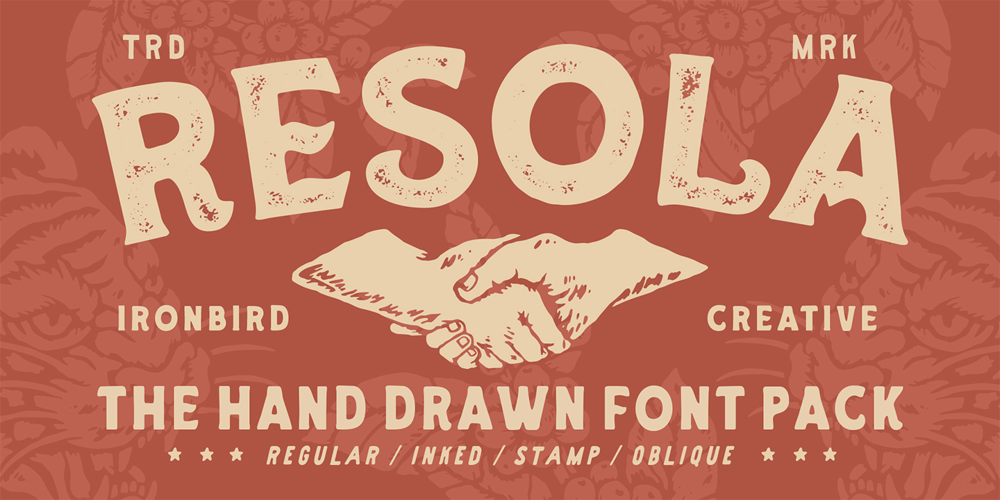
Resola Font Family was designed by Septianto Nugroho and published by Ironbird Creative. Resola contains 12 styles and family package options. Resola is a hand drawn vintage display typeface. This item consist of 12 FONTS in various styles which you can play around with it. This typefaces is perfect for people looking for vintage aesthetic and organic feel.What Will You Get : Resola Vintage Serif (OTF and TTF) Resola Sans Serif (OTF and TTF) We hope you enjoy the font, please feel free to comment if you have any thoughts or feedback. Thanks for purchasing and have fun!Regards,Ironbird Creative